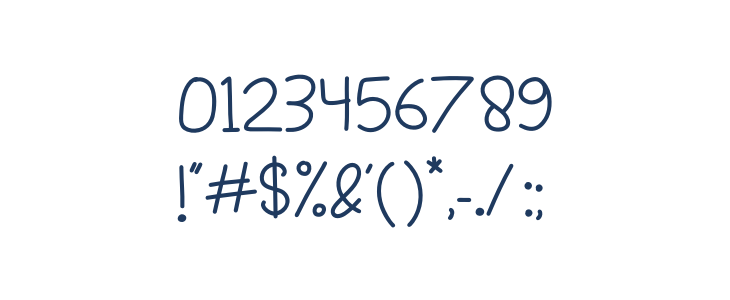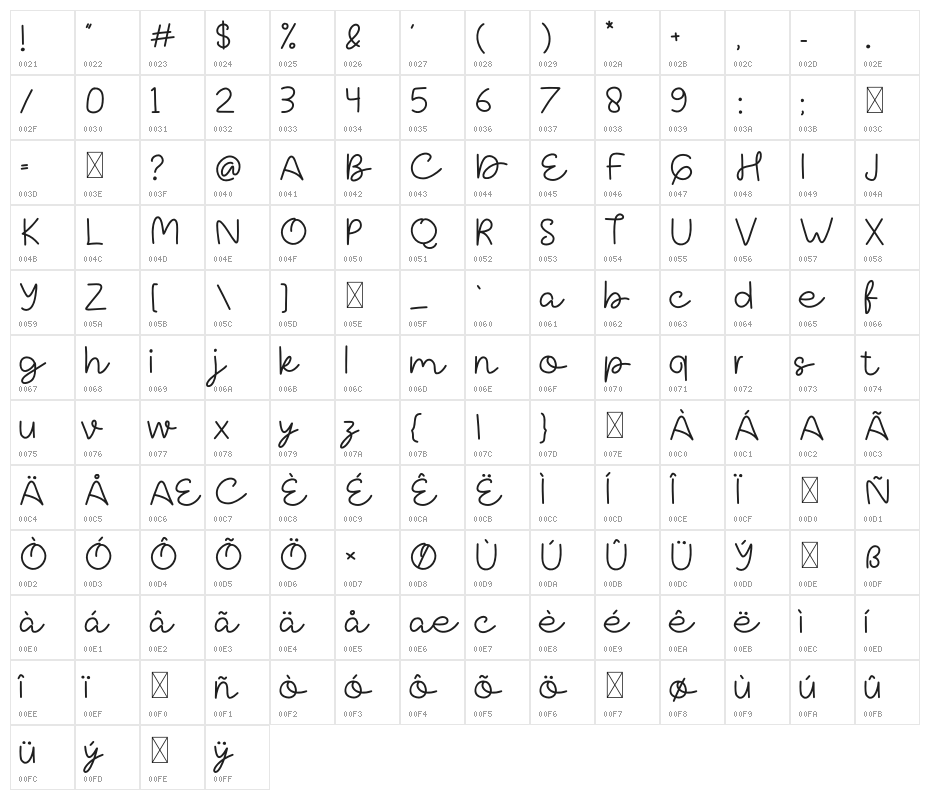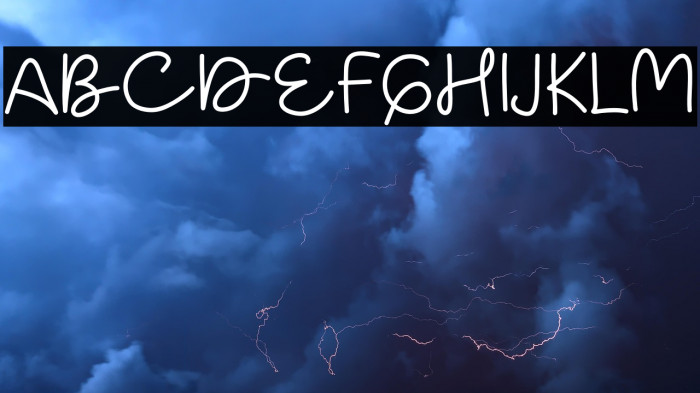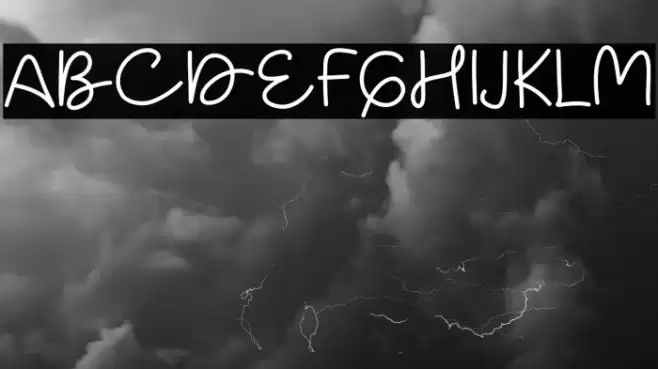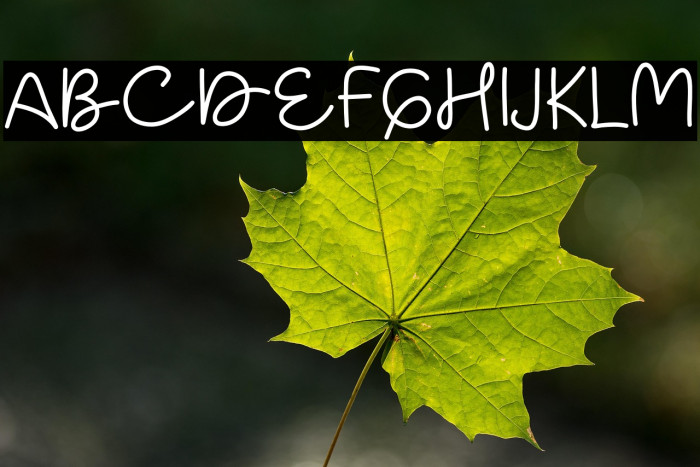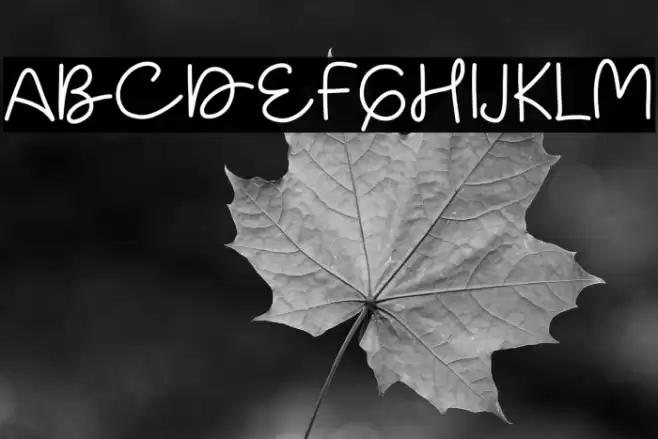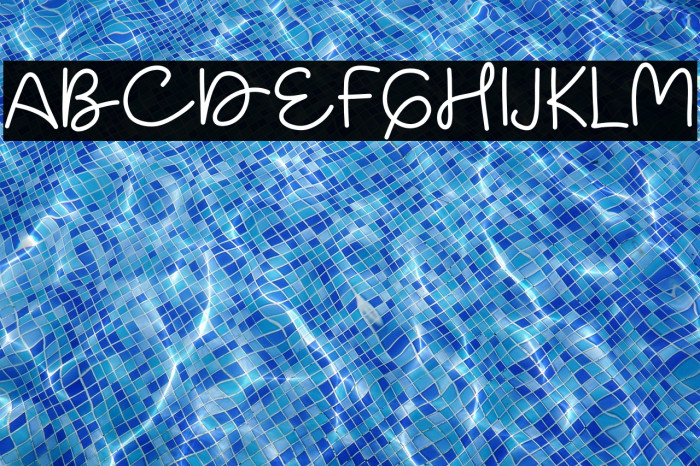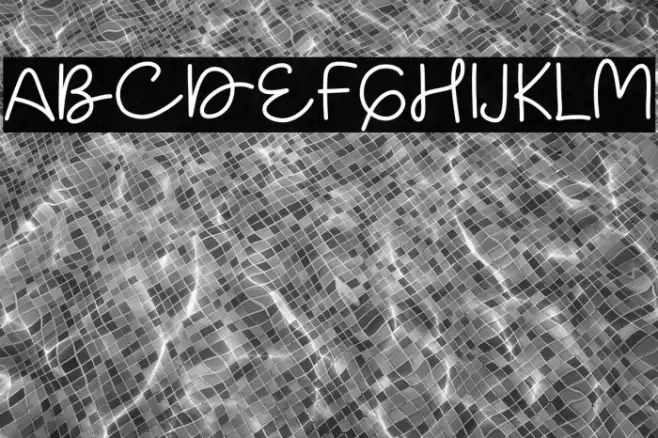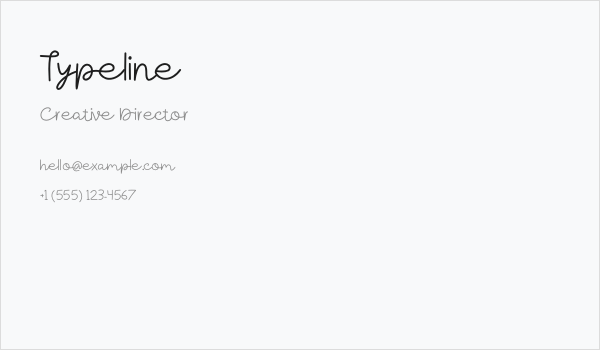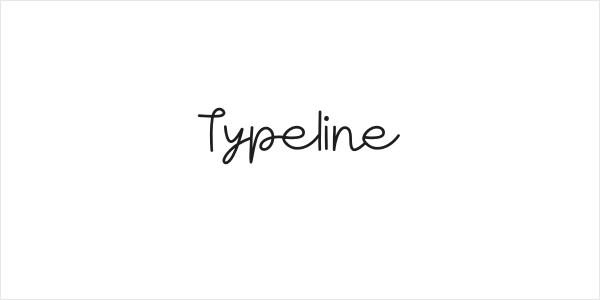
Typeline Font
Typeline Description
This font features a playful and casual handwritten style, characterized by its smooth, flowing lines and rounded edges. The uppercase letters maintain a consistent height, while the lowercase letters exhibit a slight variation in size, adding to the informal and friendly appearance. The numerals are clear and easy to read, matching the overall aesthetic of the alphabet. Special characters are included, maintaining the same whimsical style. The font's design is approachable and versatile, suitable for a variety of creative projects.